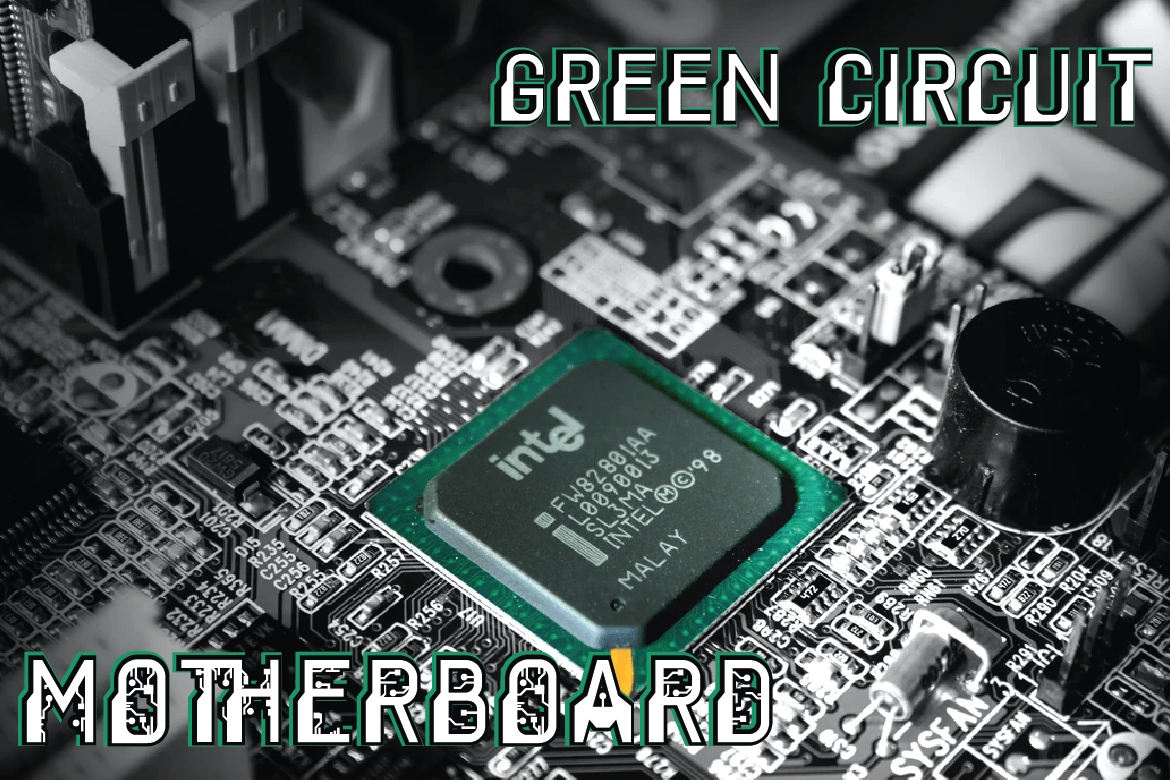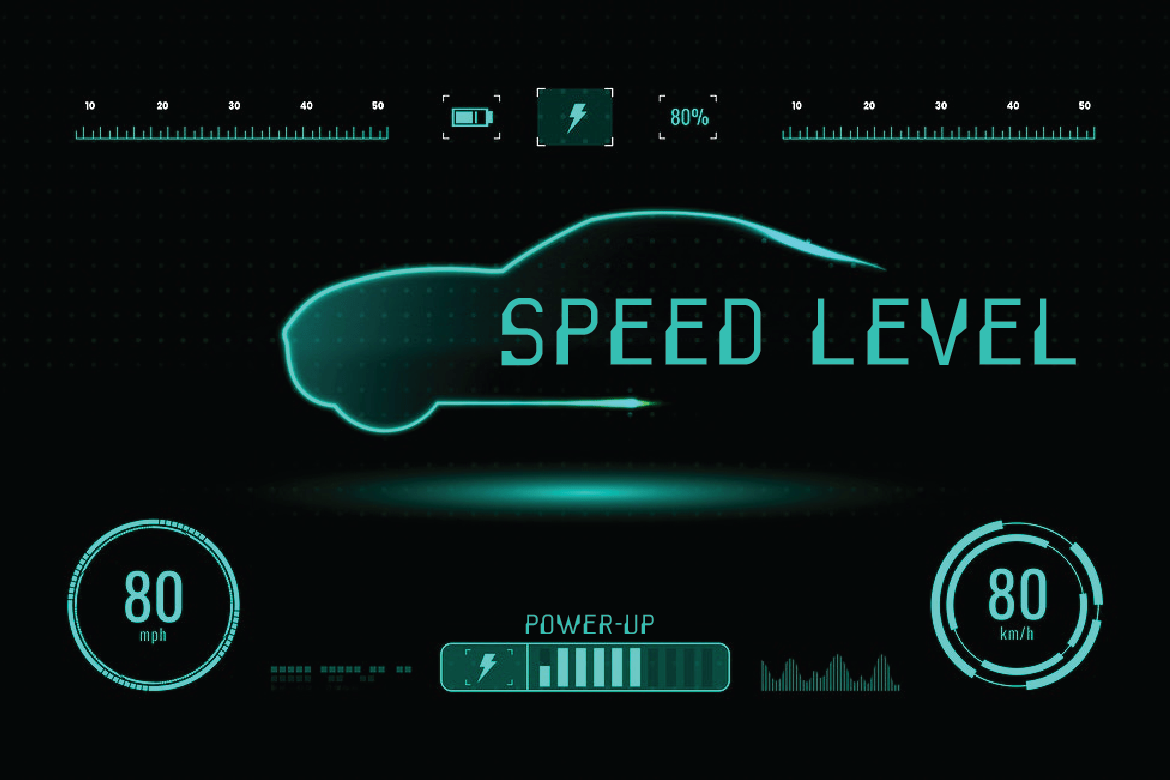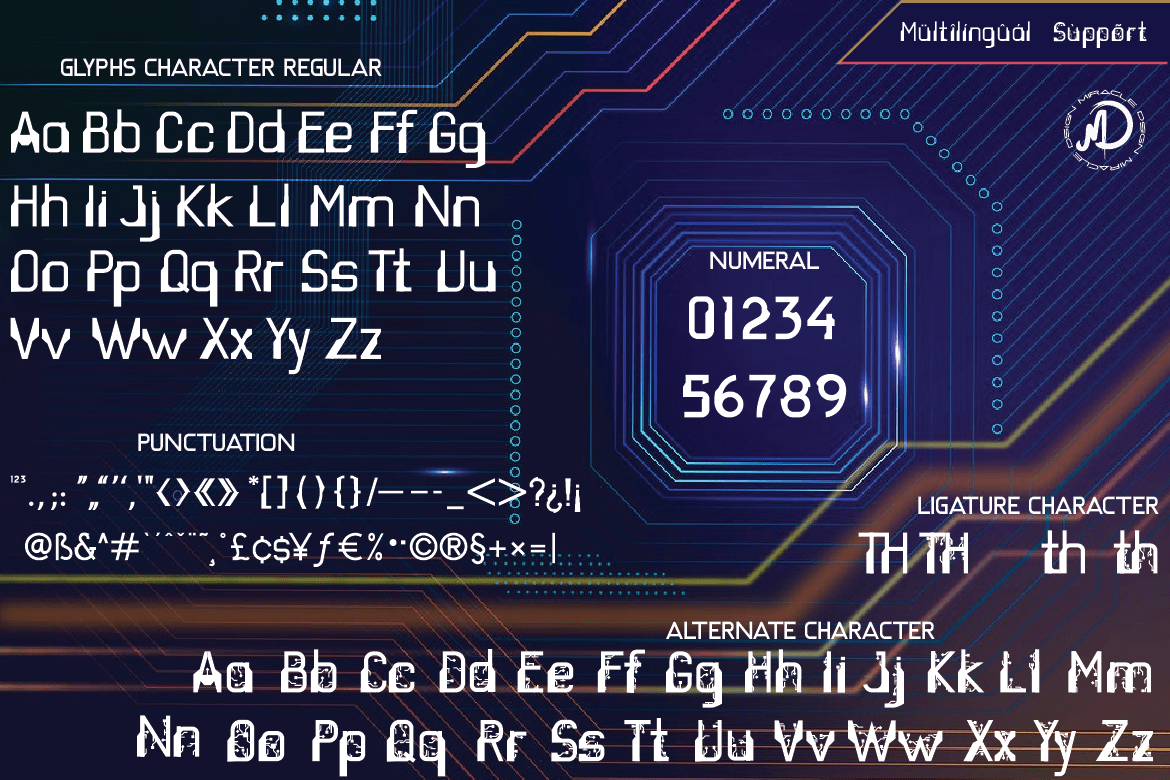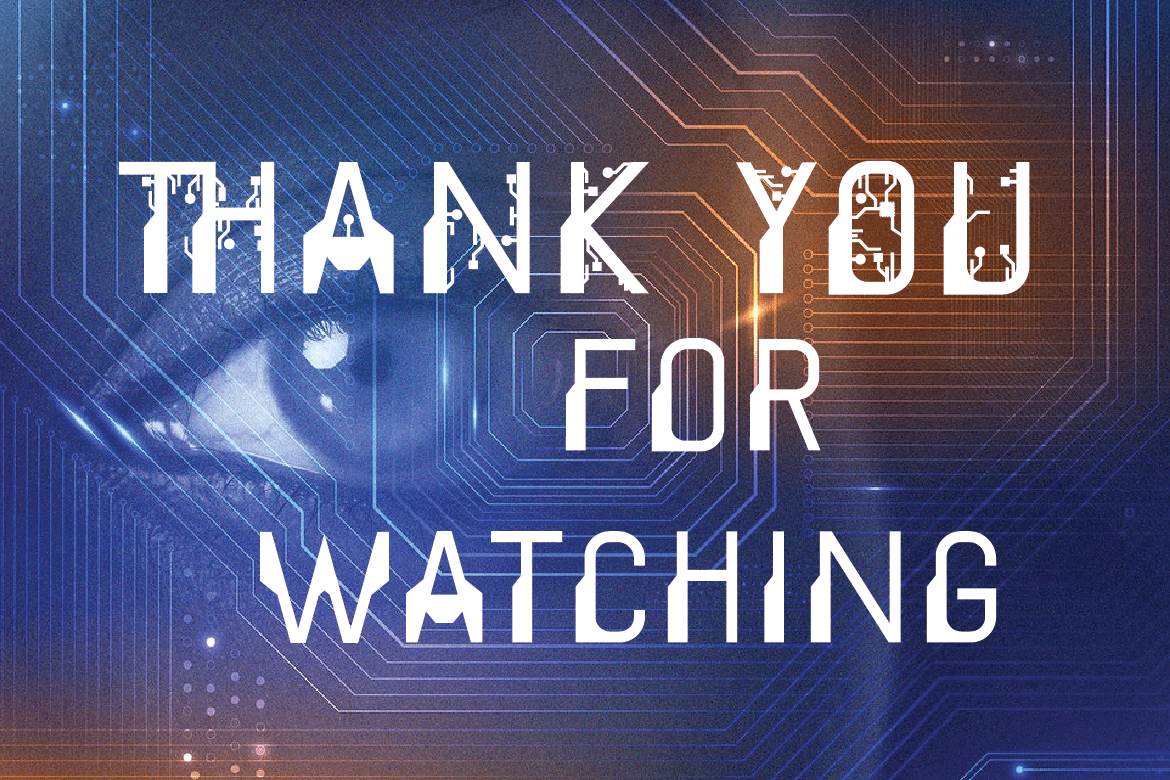
ECTRON Display Font
This is a san serif family with special, elegant and charming characteristics. Its use is also very flexible, can be used for various design projects, both formal and informal, this font is simply amazing. ECTRON comes with alternates in each character, helping you in creating titles and text.
This font is perfect for packaging, special occasion events, branding, banners, posters, movie titles, food and drink, quotes, clothing, logo types, and more.